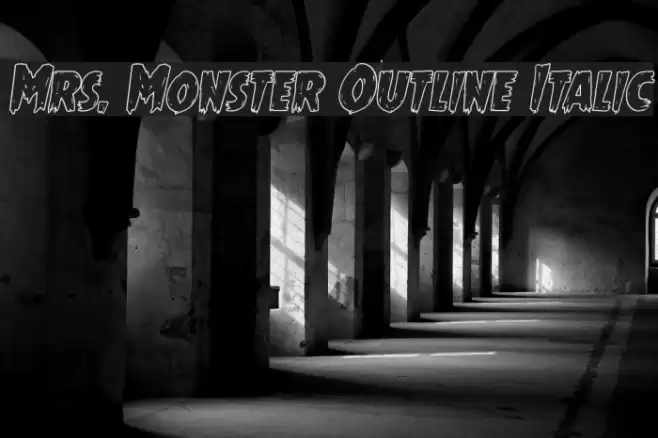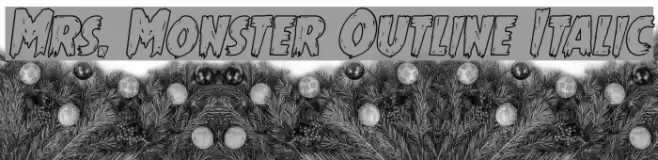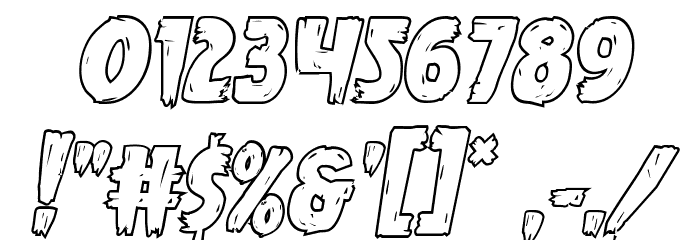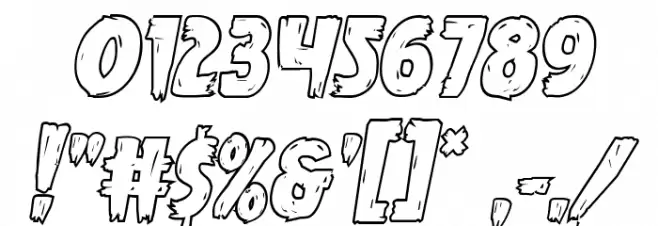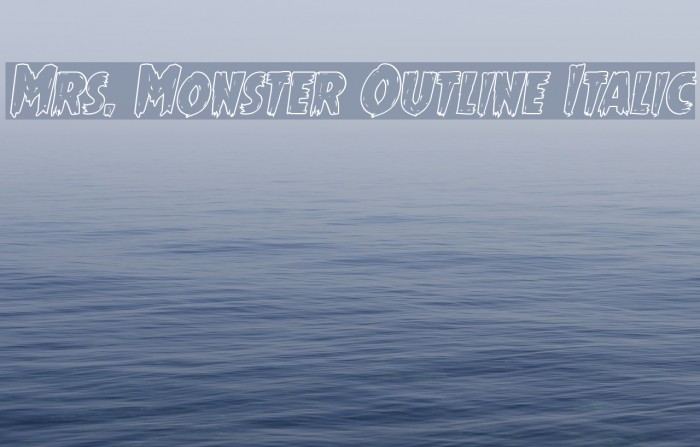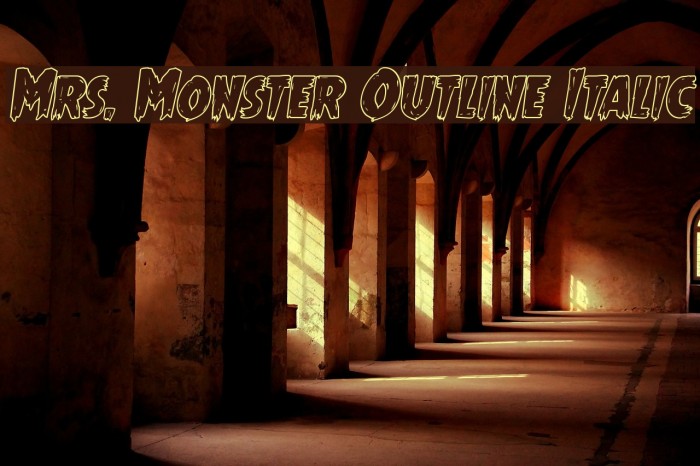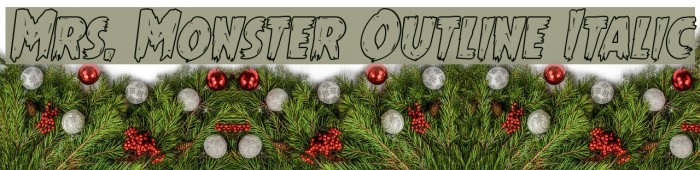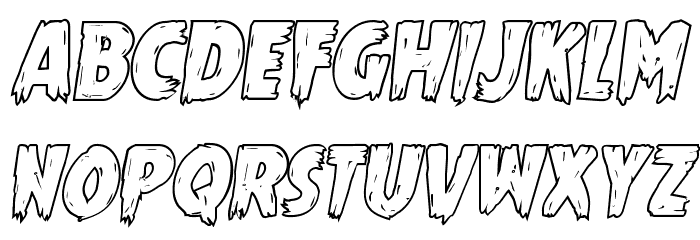
Mrs. Monster Outline Italic Font
Mrs. Monster Outline Italic Description
This font features a bold, playful design with an outline style that gives it a dynamic and energetic appearance. The characters have a jagged, irregular edge that adds a sense of movement and excitement. The italic slant enhances the sense of speed and action, making it ideal for eye-catching designs. The uppercase and lowercase letters maintain a consistent style, with numbers and special characters following the same theme. The font's unique style makes it suitable for projects that require a fun and engaging look.
A bold, outlined, and italic font with a playful, energetic style from Uncategorized fonts.
- Proposed Projects: Ideal for Halloween-themed designs, comic book titles, children's event posters, and playful branding.
- Use Case: Headlines, Posters, Branding